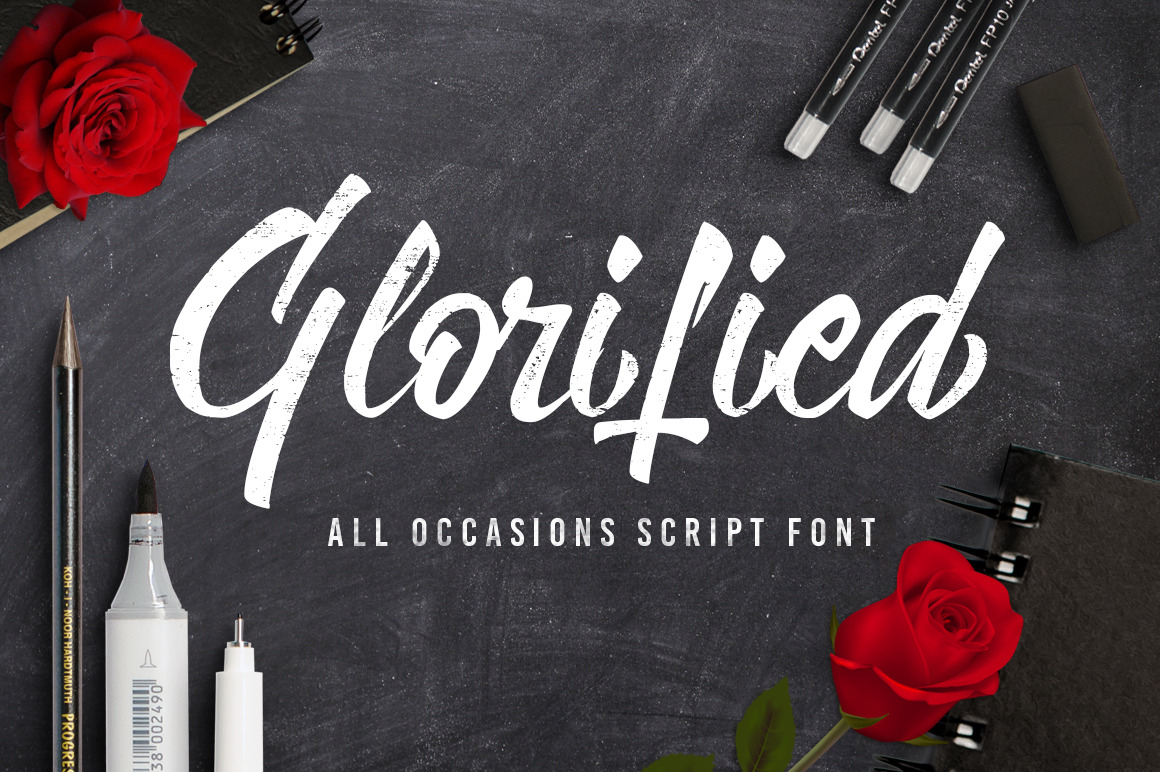
Glorified Script Font
Introducing Glorified Script Font...
A premium handwritten script font for your next special occasion or project!
2 versions included! Solid and Distressed.